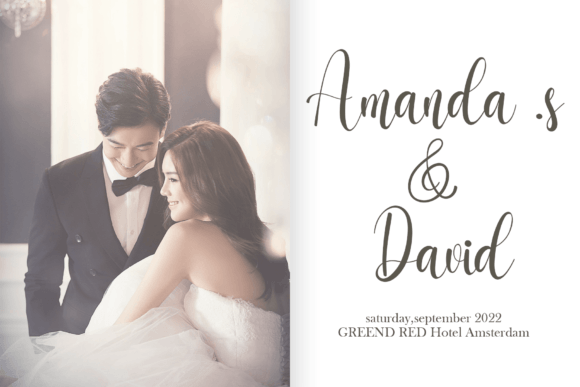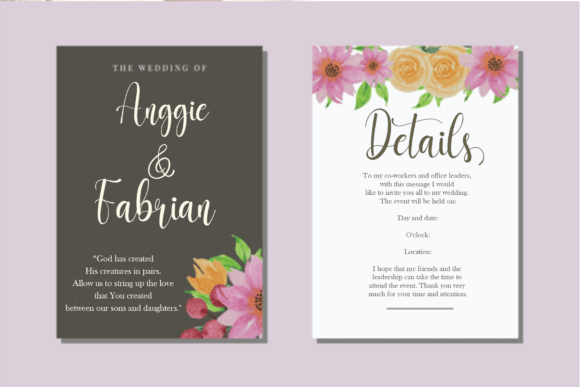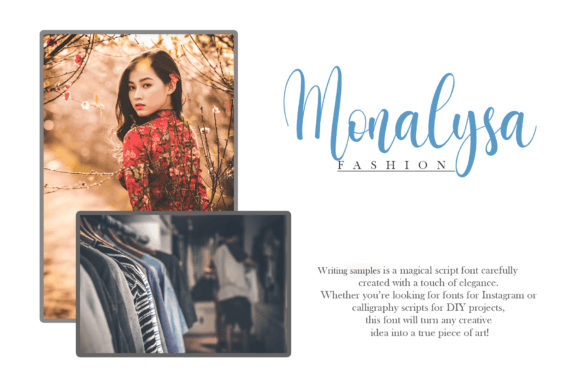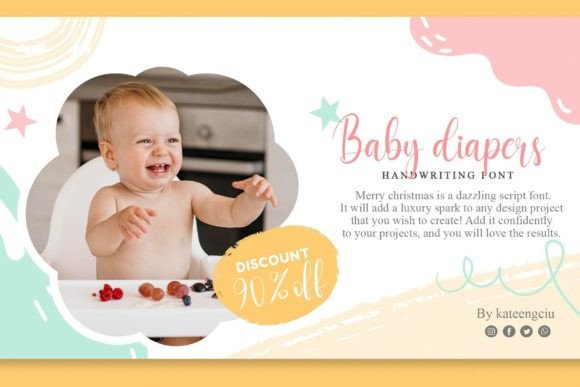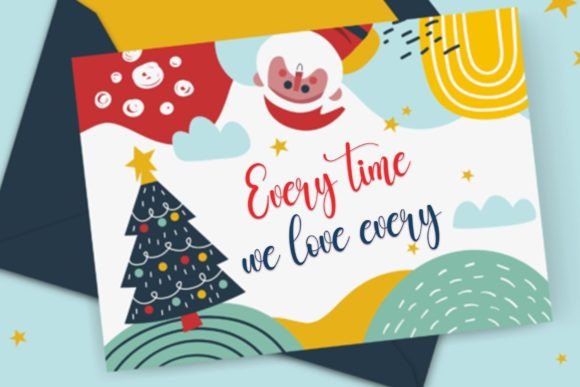
About Writing Samples Font
Writing Samples is a friendly handwritten font, meticulously crafted to become a true favorite. It retains its classy calligraphic influences while exuding a contemporary and fresh vibe.
This font’s friendly nature makes it a versatile option suitable for a variety of design projects. Whether used for invitations, cards, branding, or other creative endeavors, Writing Samples adds a touch of warmth and approachability to your text.
The careful design of Writing Samples ensures that it maintains a balance between classic calligraphic elements and a modern, fresh aesthetic. This combination allows it to seamlessly integrate into both traditional and contemporary design contexts.
For invitations and cards, Writing Samples brings a friendly and personal touch, making your messages feel warm and heartfelt. Its handwritten charm adds an authentic quality that resonates with audiences seeking a genuine and approachable style.
In branding, Writing Samples contributes to a friendly and contemporary visual identity. Its versatility makes it suitable for a wide range of industries, adding a touch of personality to logos, packaging, and promotional materials.
Overall, Writing Samples is more than just a font; it’s a carefully crafted tool designed to be a favorite in your creative toolkit. Whether used for formal or casual projects, this friendly handwritten font ensures that your designs feel both timeless and fresh, creating a lasting impact on your audience.